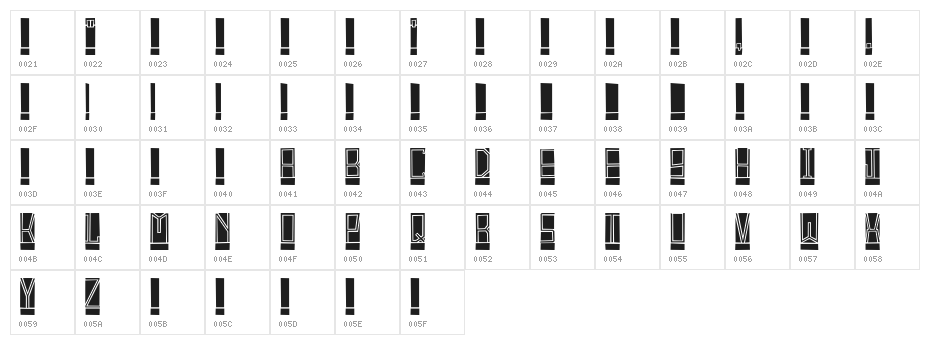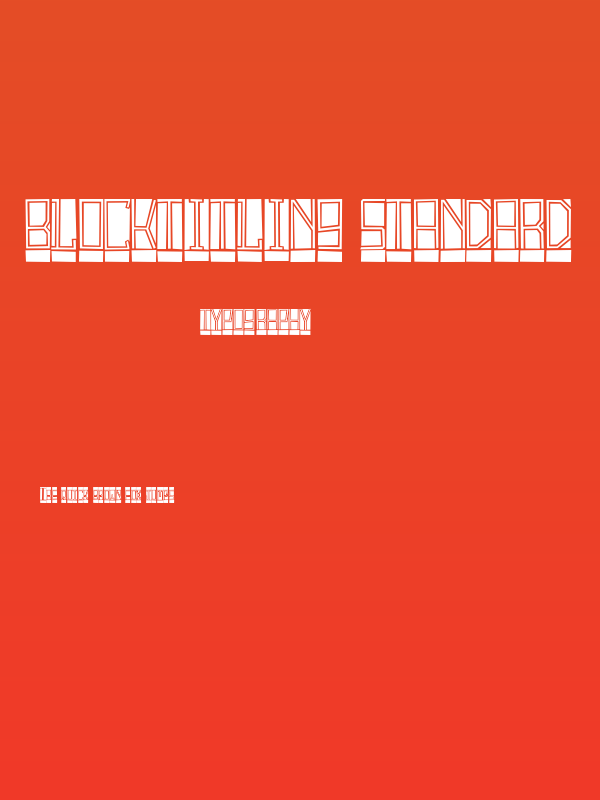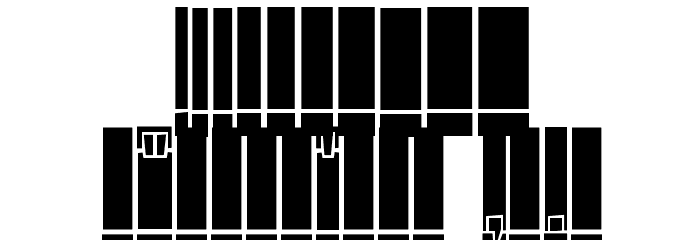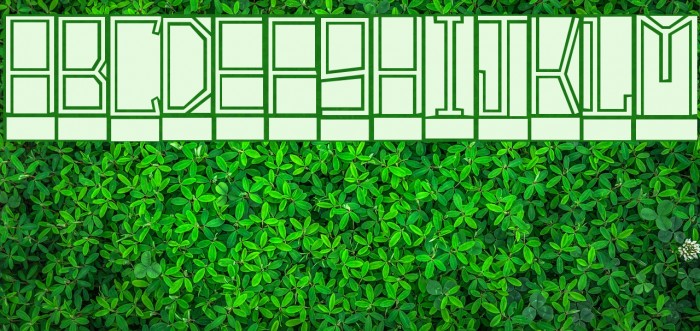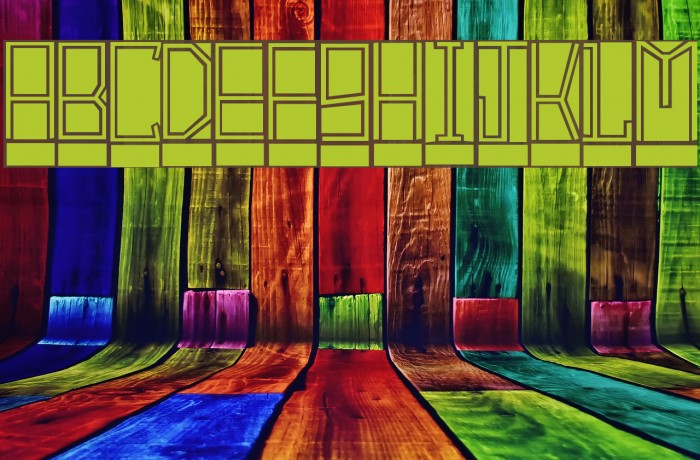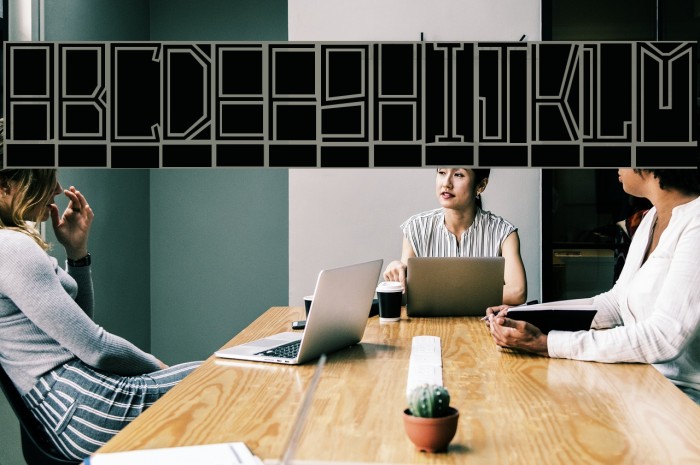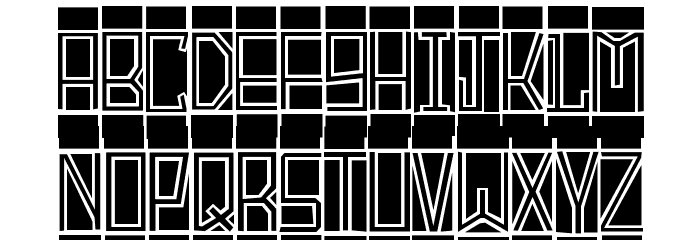
BlockTitling Standard Font
BlockTitling Standard Description
This font features a bold, geometric design with a strong emphasis on vertical and horizontal lines. The characters are constructed with a block-like structure, giving them a robust and industrial appearance. The uppercase letters are particularly striking, with sharp angles and a consistent width that creates a uniform look across the alphabet. The lowercase letters maintain the same geometric style, ensuring cohesion throughout the typeface. Numbers and special characters are designed to match the boldness and structure of the alphabet, making this font suitable for impactful and attention-grabbing designs.
| Proposed Projects | Ideal for posters, logos, and branding projects that require a strong, modern aesthetic. |